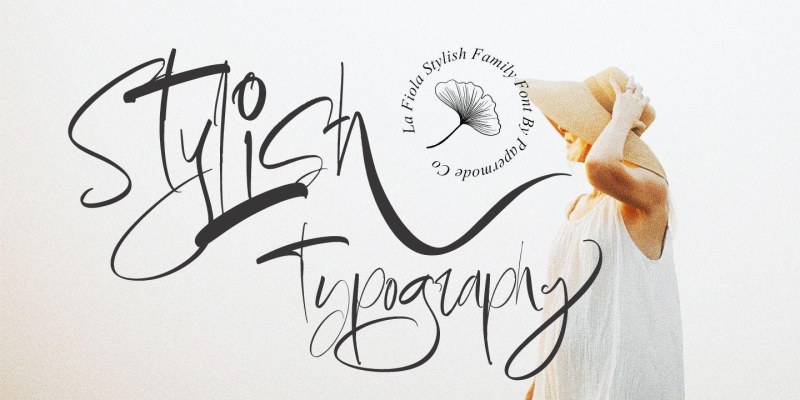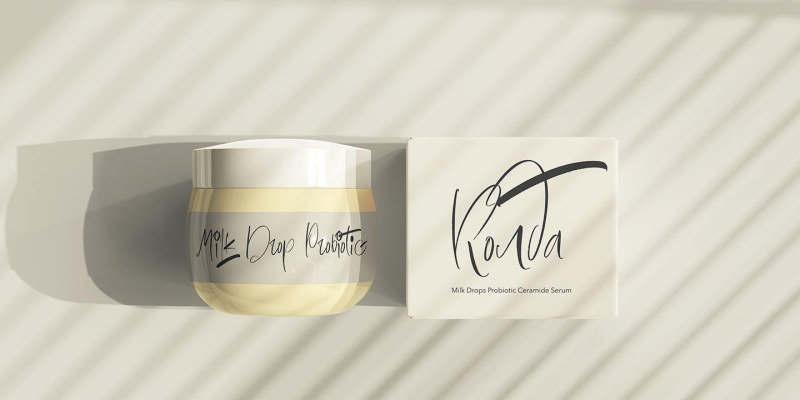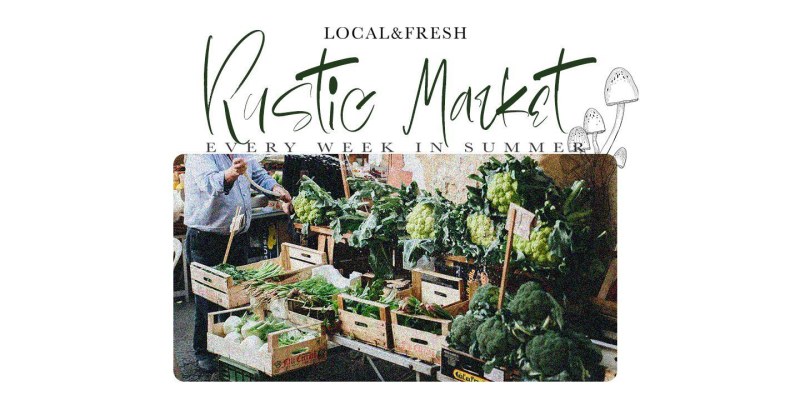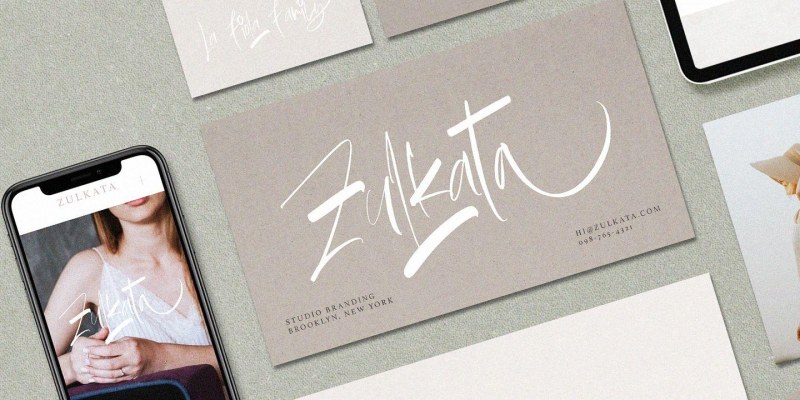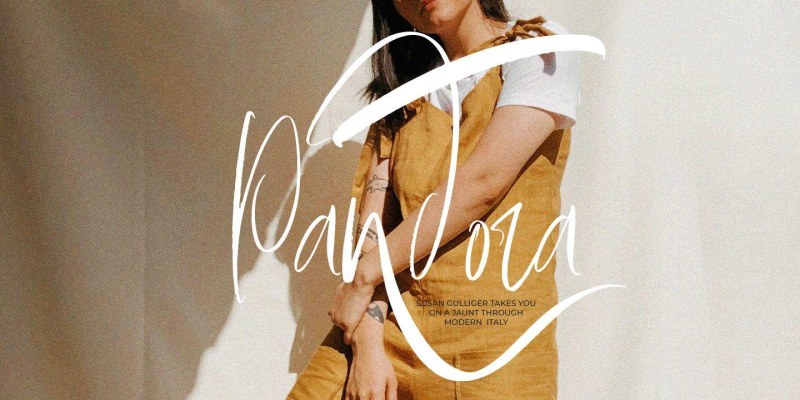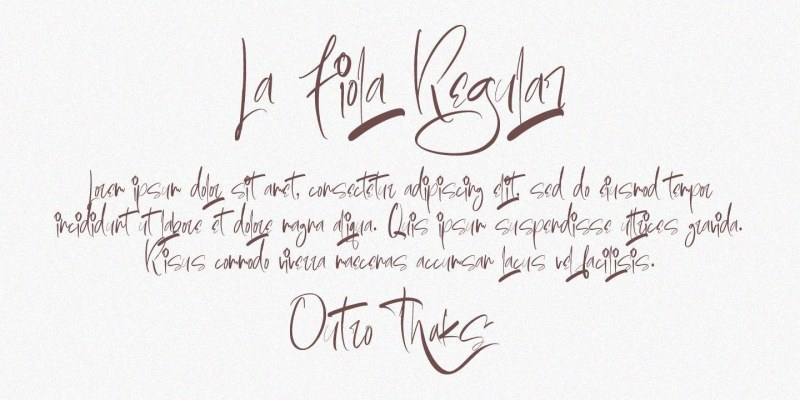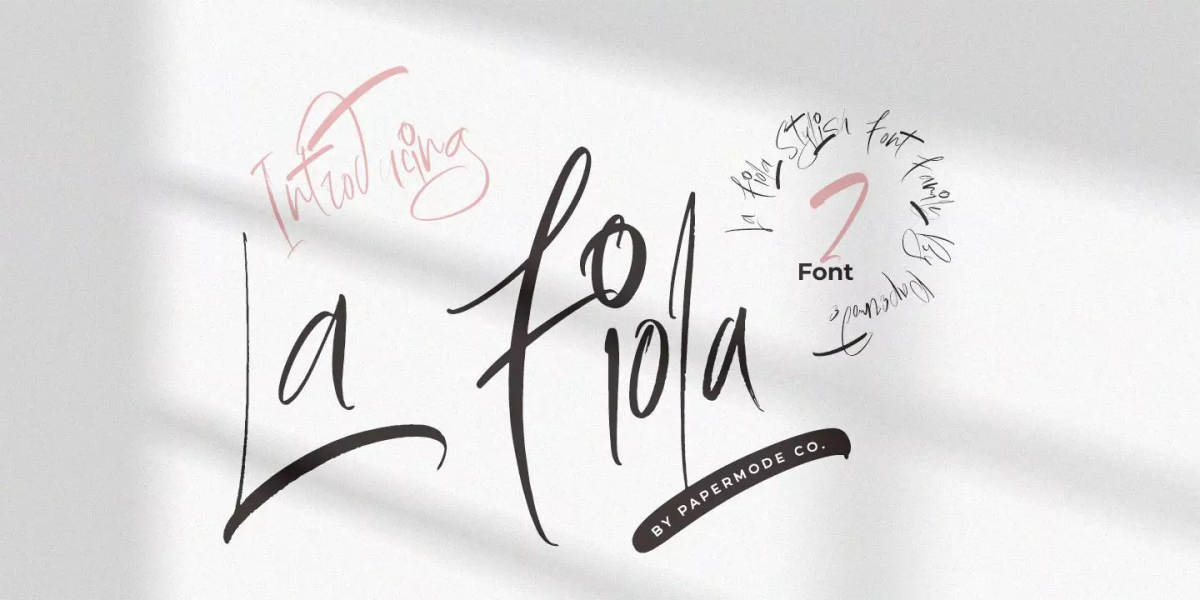
La Fiola Font Family
La Fiola Family is a stylish handwitted font inspired by natural brush typography. Written in rapid motion using a slightly dry brush pen. This will give you a fresh and elegant design. La Fiola consists of two different styles, comes with uppercase and lowercase letters, uppercase and lowercase sets, numbers, alternative styles for some lowercase characters are also available which make your text and designs more attractive.
La Fiola Font Family is a Font Family font that brings a professional and versatile look to your projects. La Fiola Family is a stylish handwitted font inspired by natural brush typography.